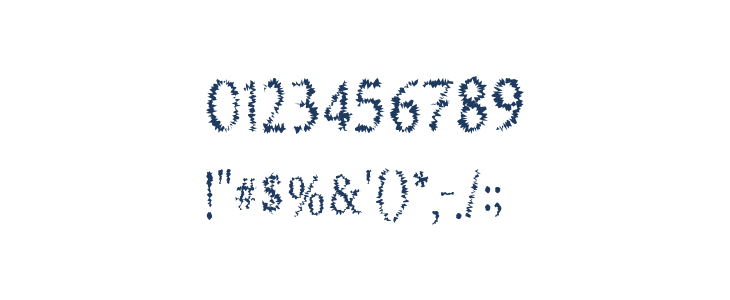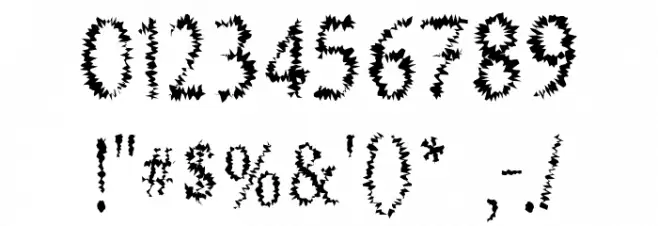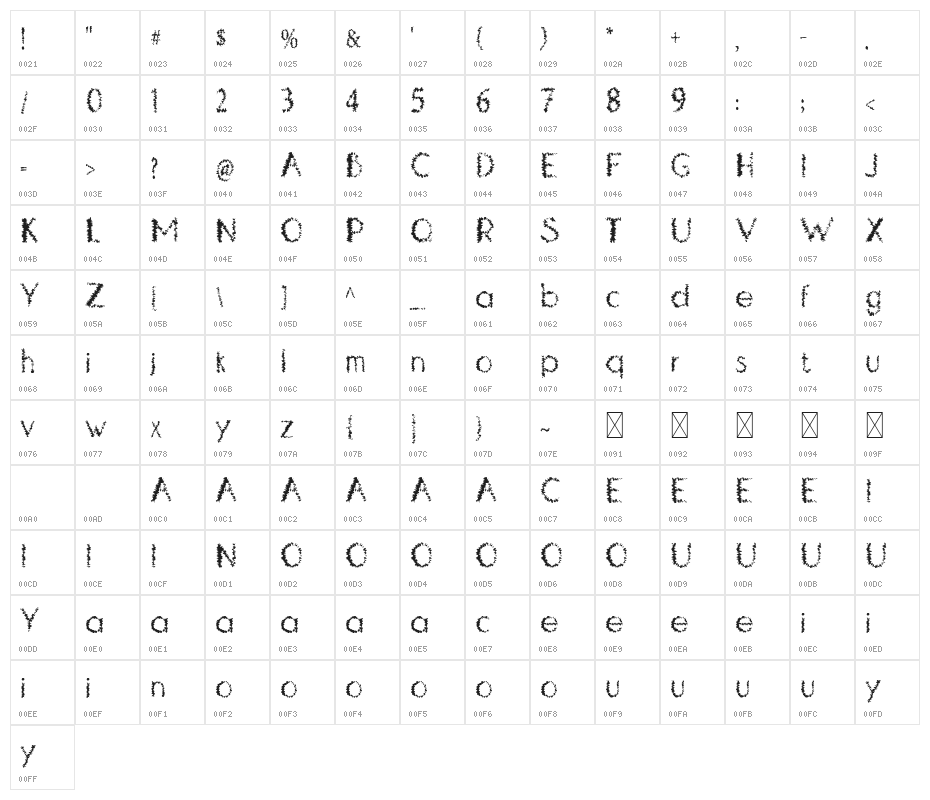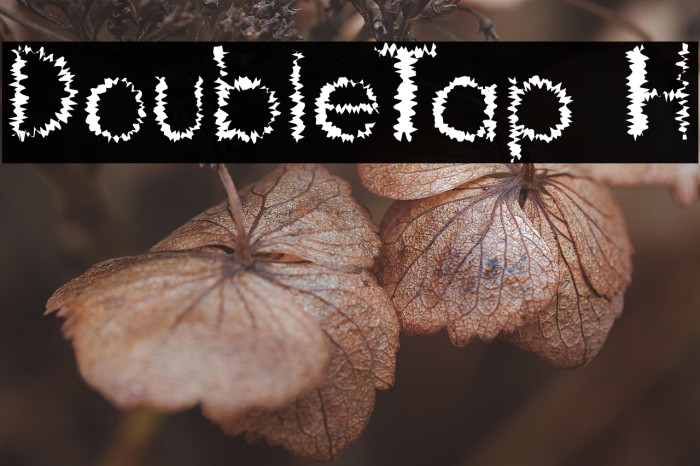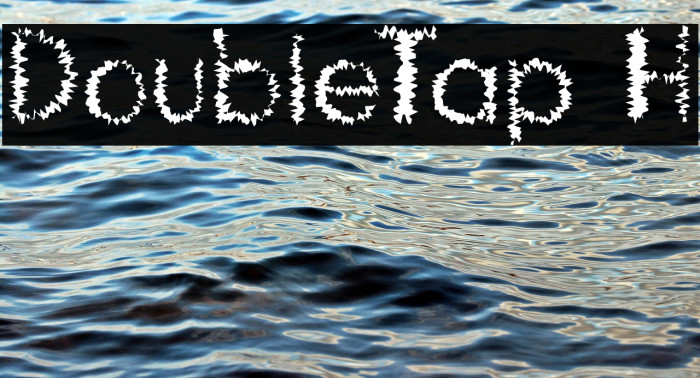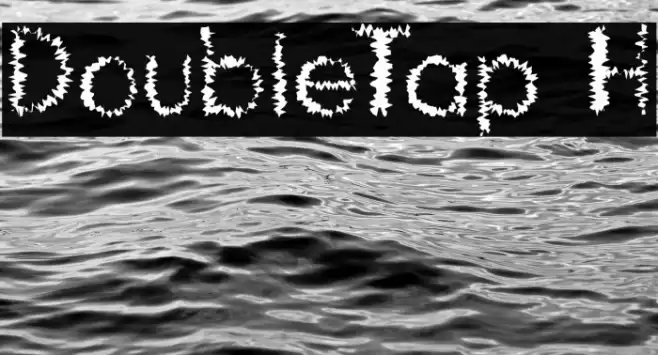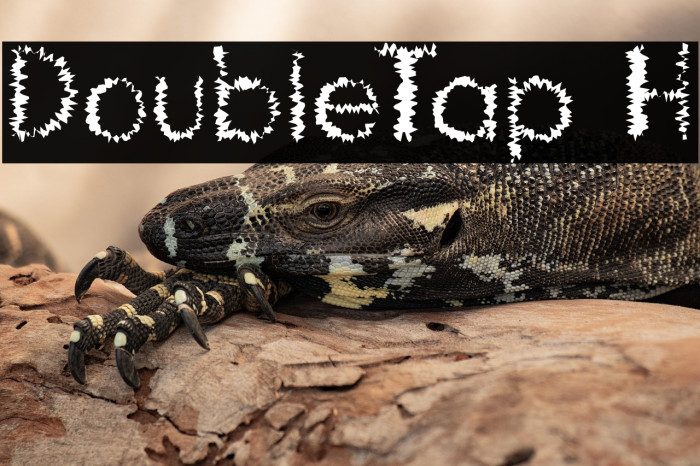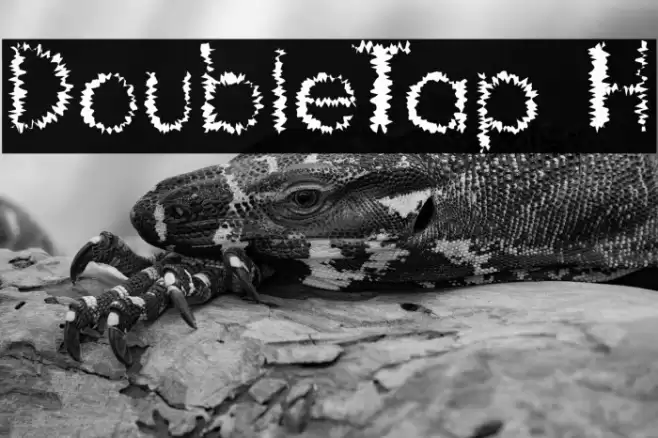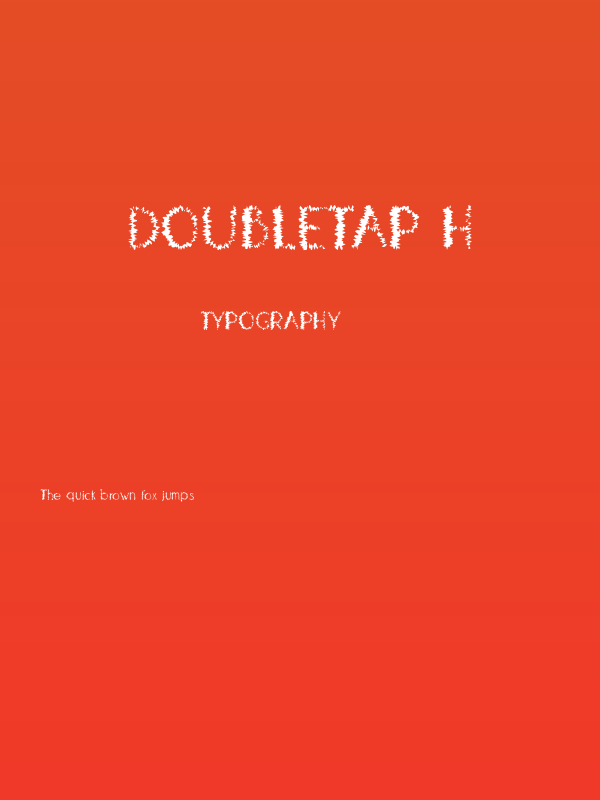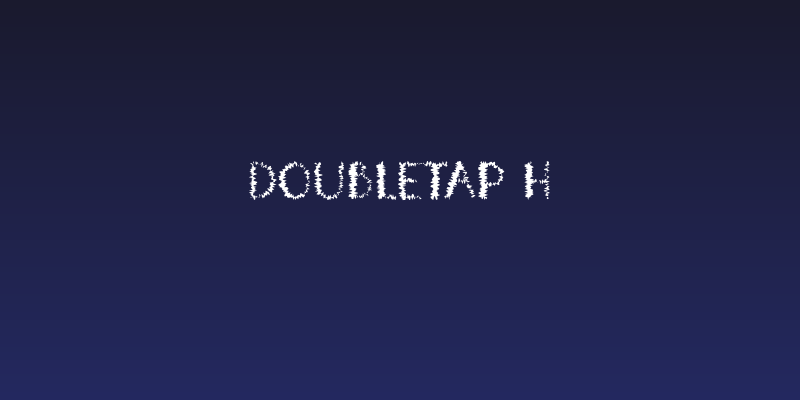
DoubleTap H Font
DoubleTap H Description
This font features a unique and eye-catching design with jagged, irregular edges that give it a dynamic and energetic appearance. The characters are bold and heavily stylized, resembling a burst of energy or an explosion. Each letter and number is distinct, with sharp angles and a textured look that adds depth and interest. The font maintains a consistent style across uppercase, lowercase, numbers, and special characters, making it versatile for various creative projects. Its distinctive appearance makes it ideal for attention-grabbing headlines or artistic designs.
| Proposed Projects | Ideal for posters, album covers, video game titles, and any project requiring a bold, dynamic aesthetic. |